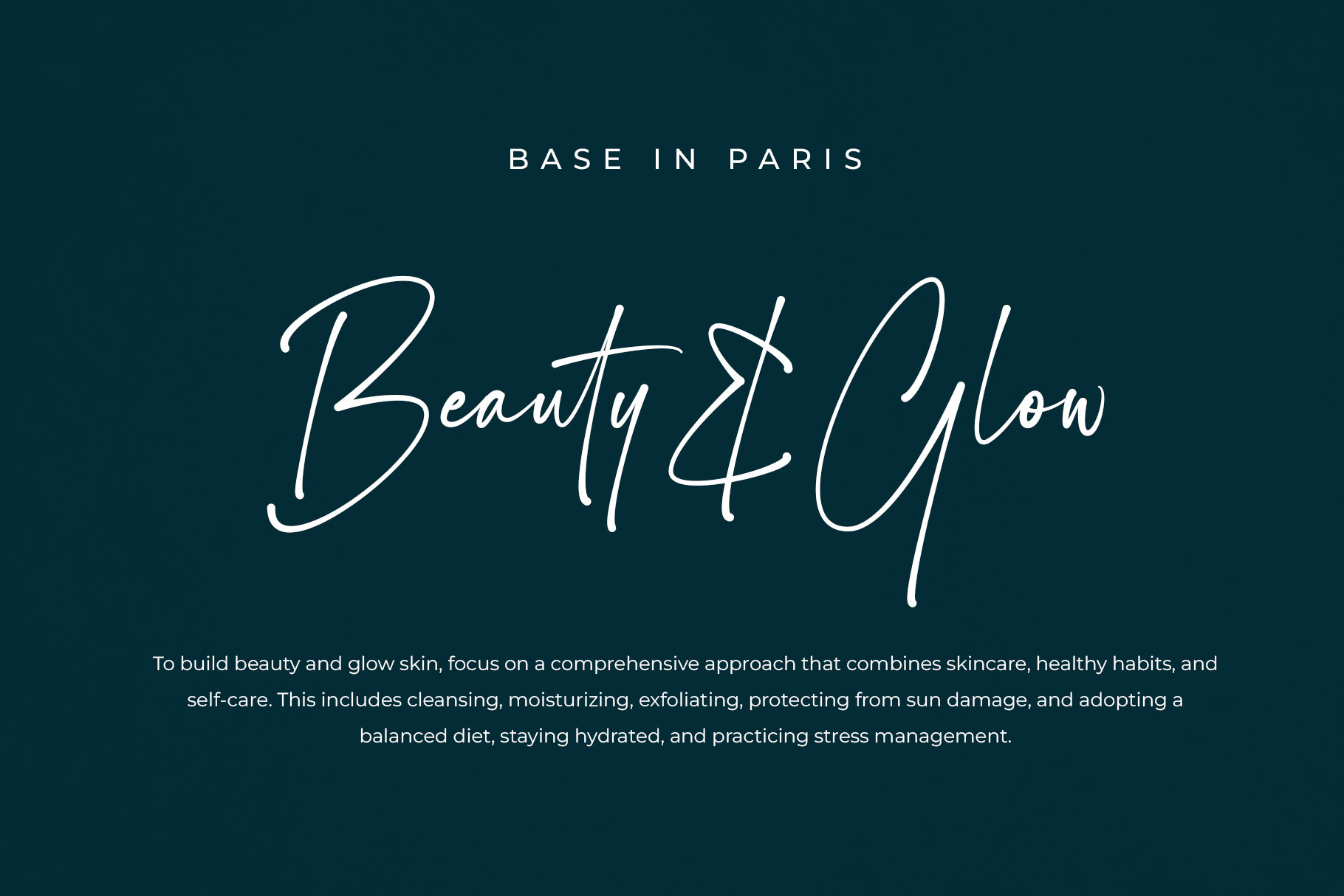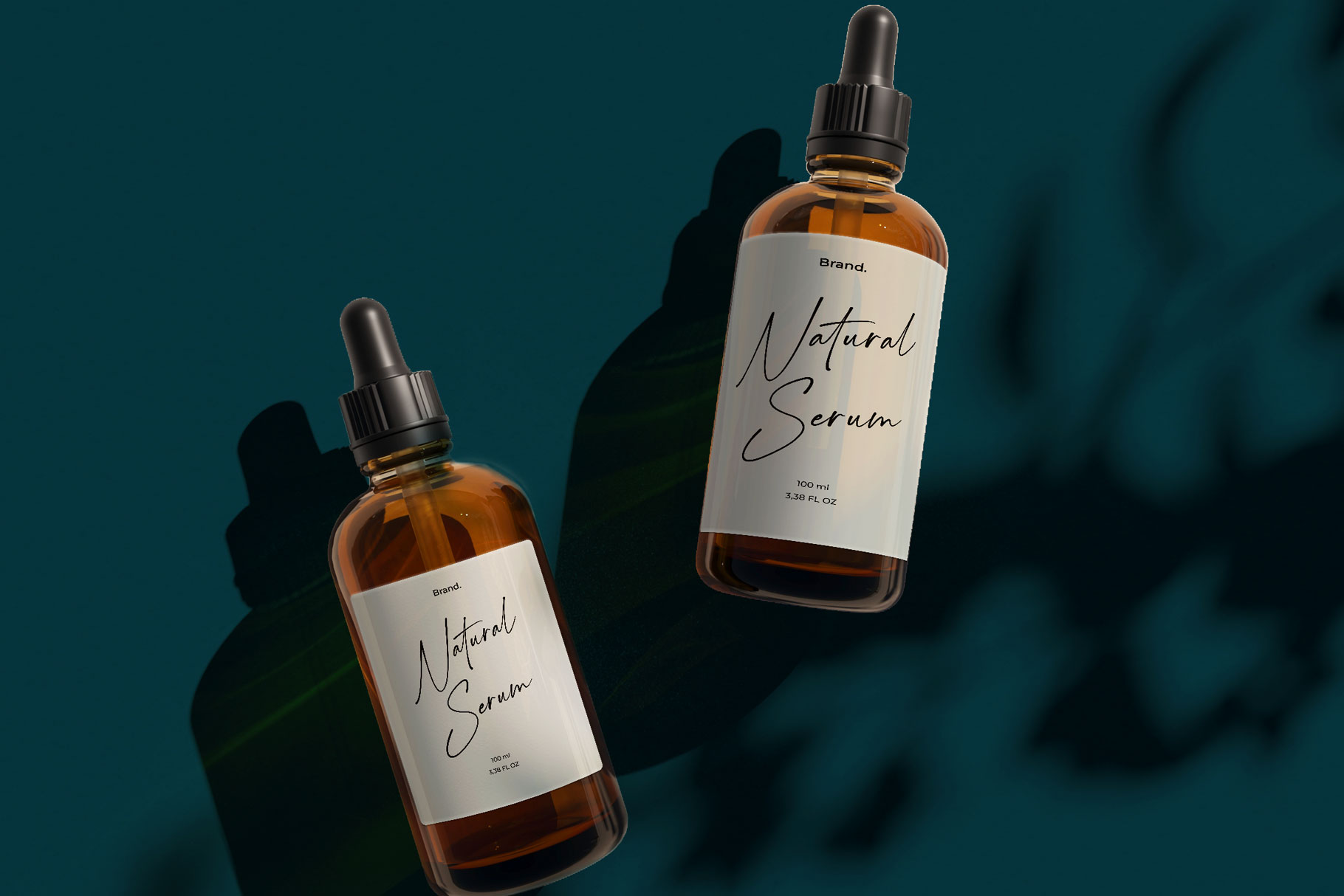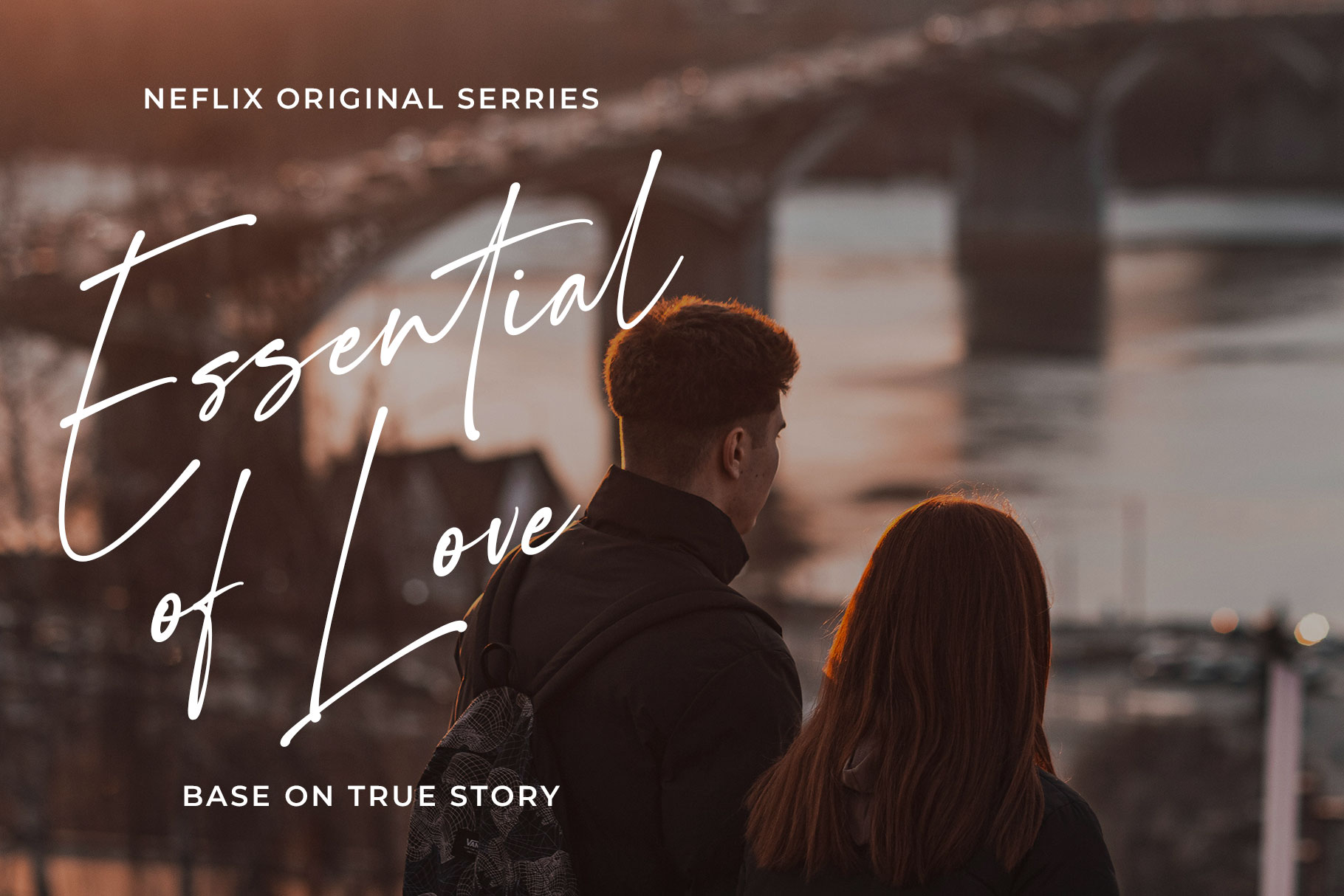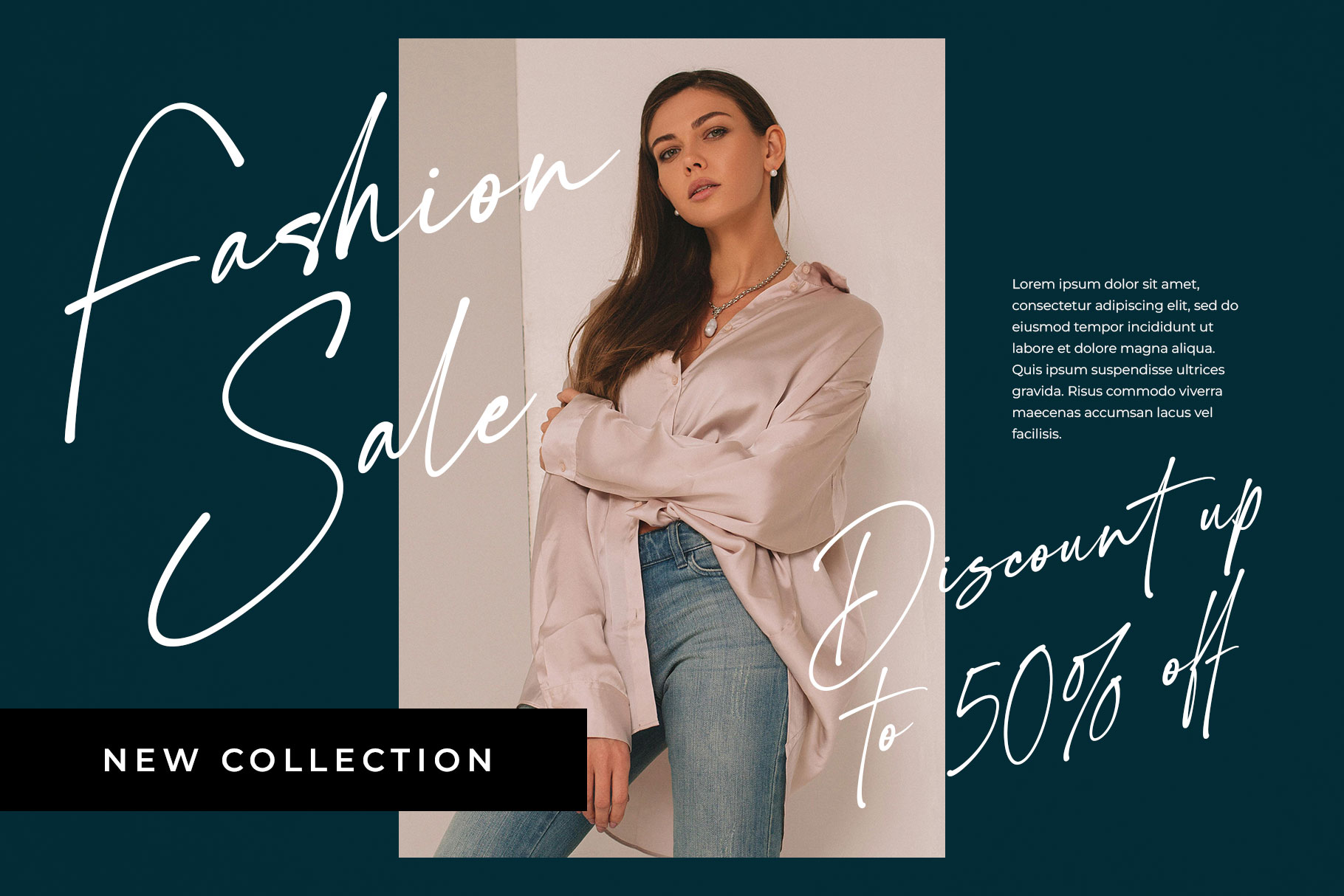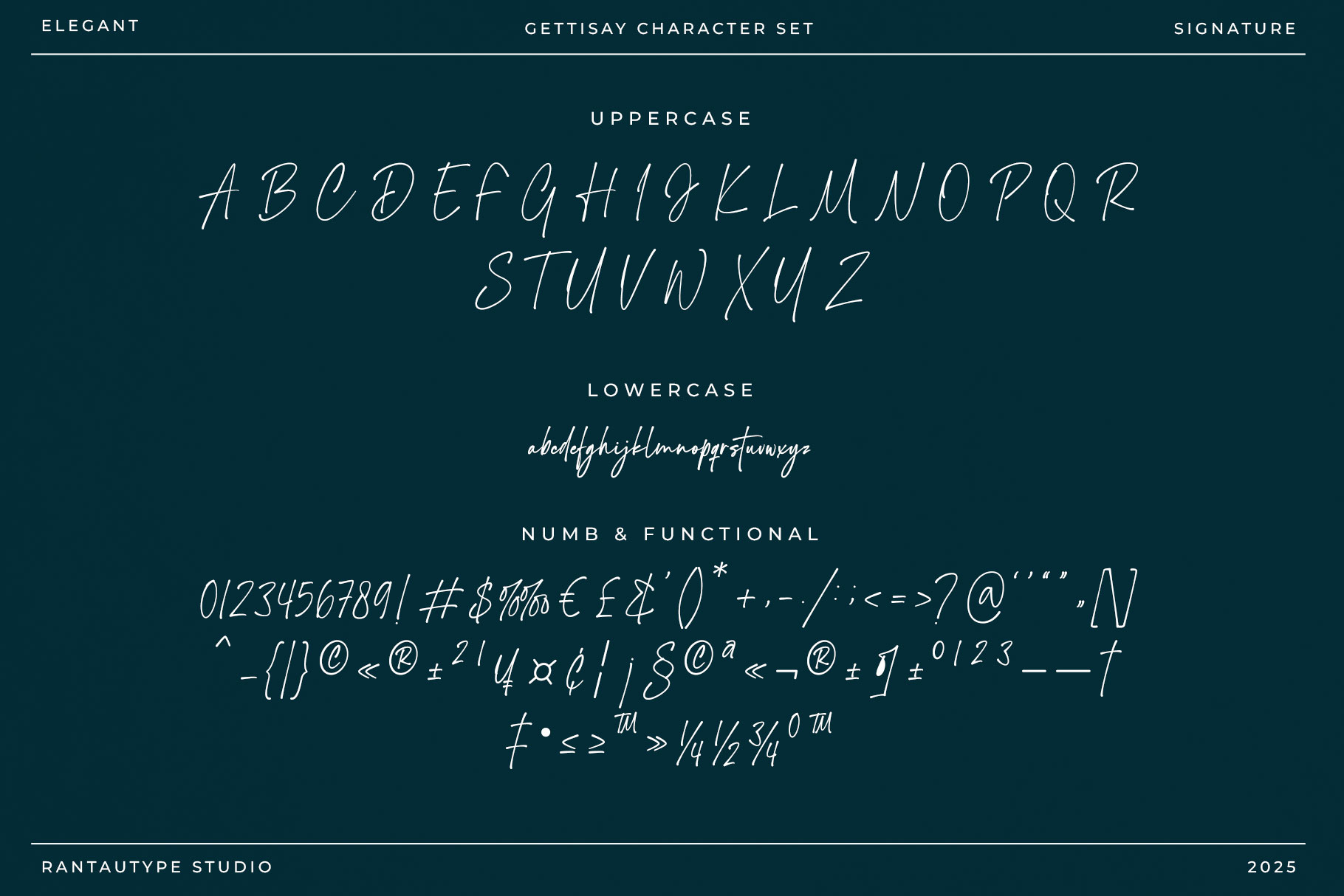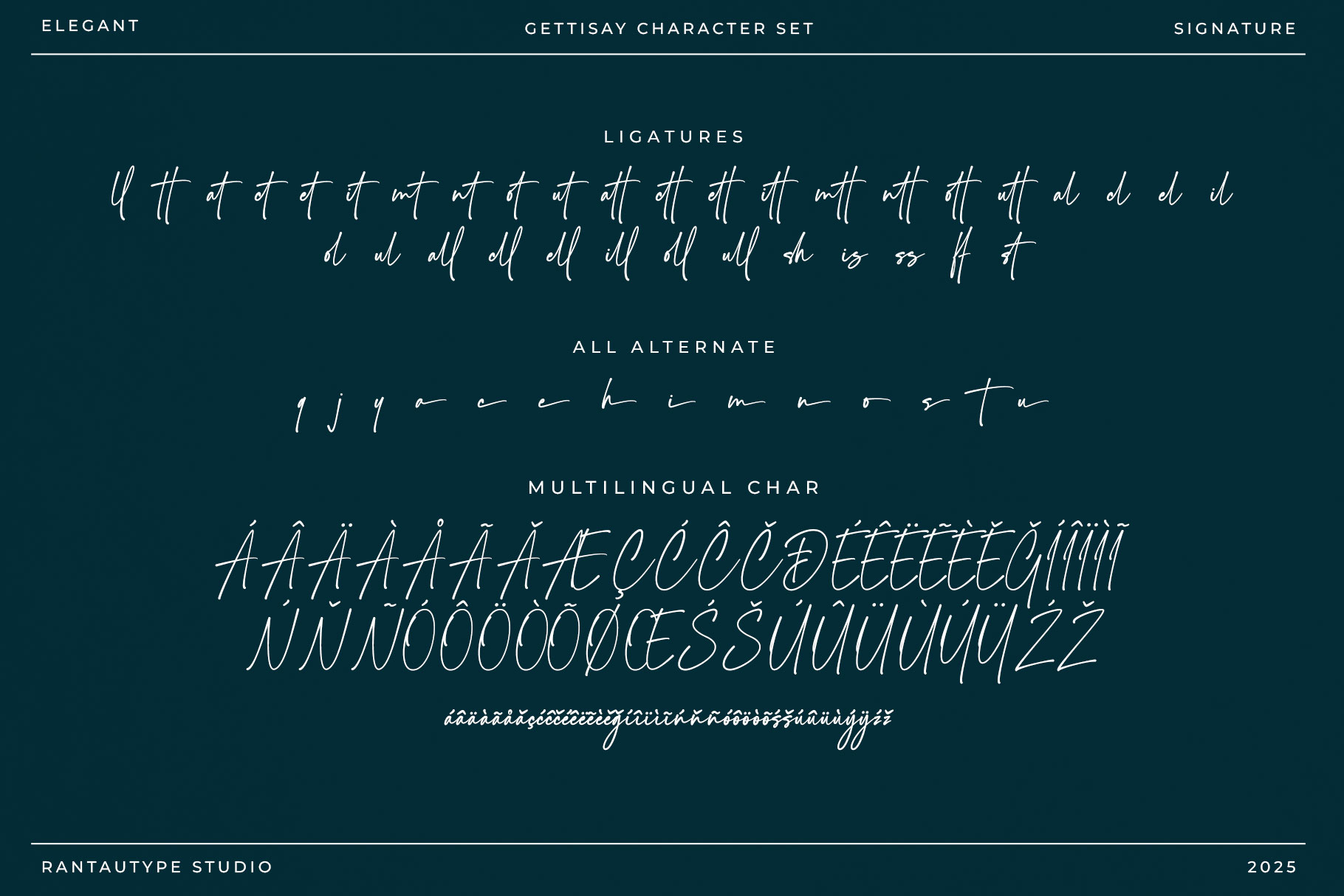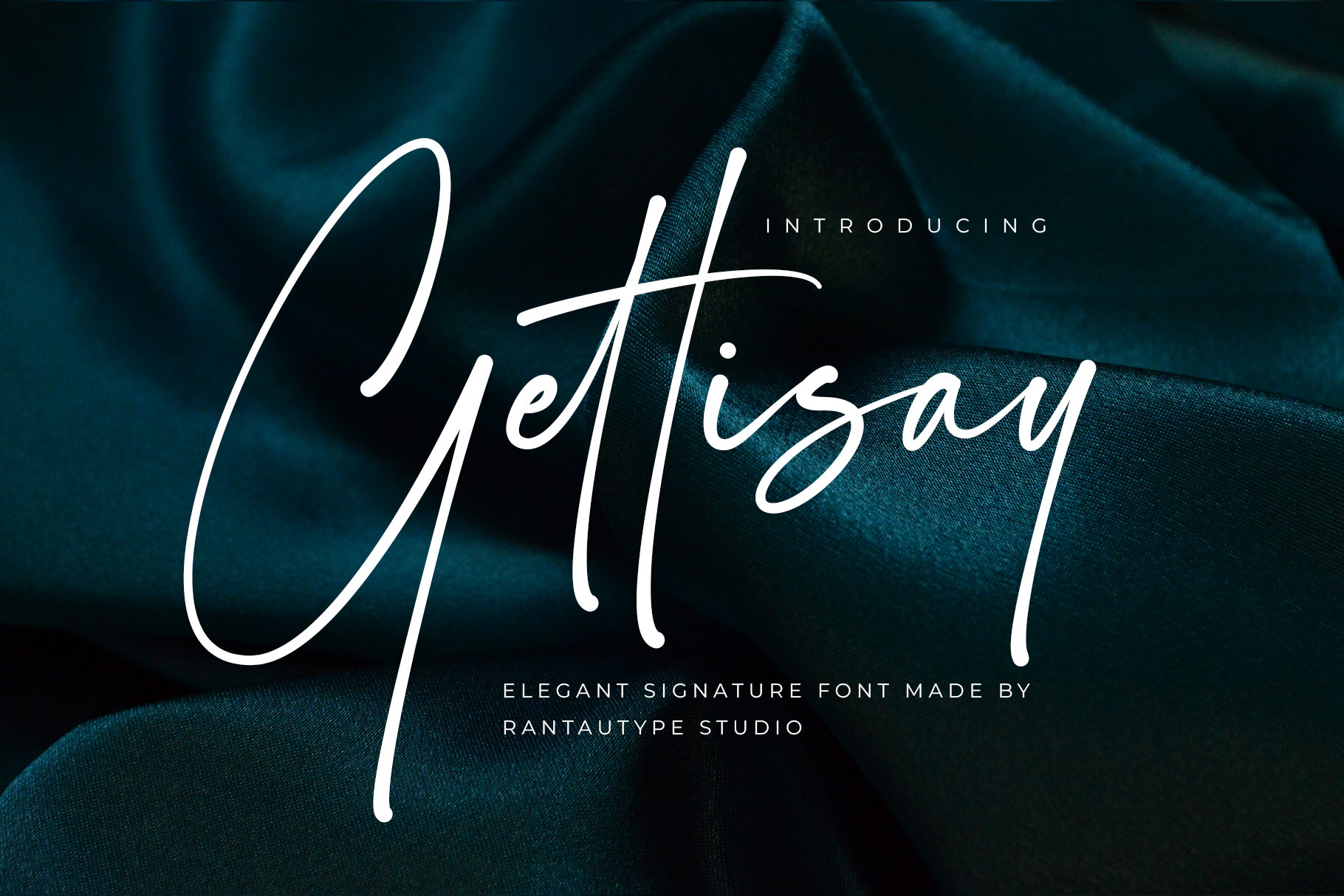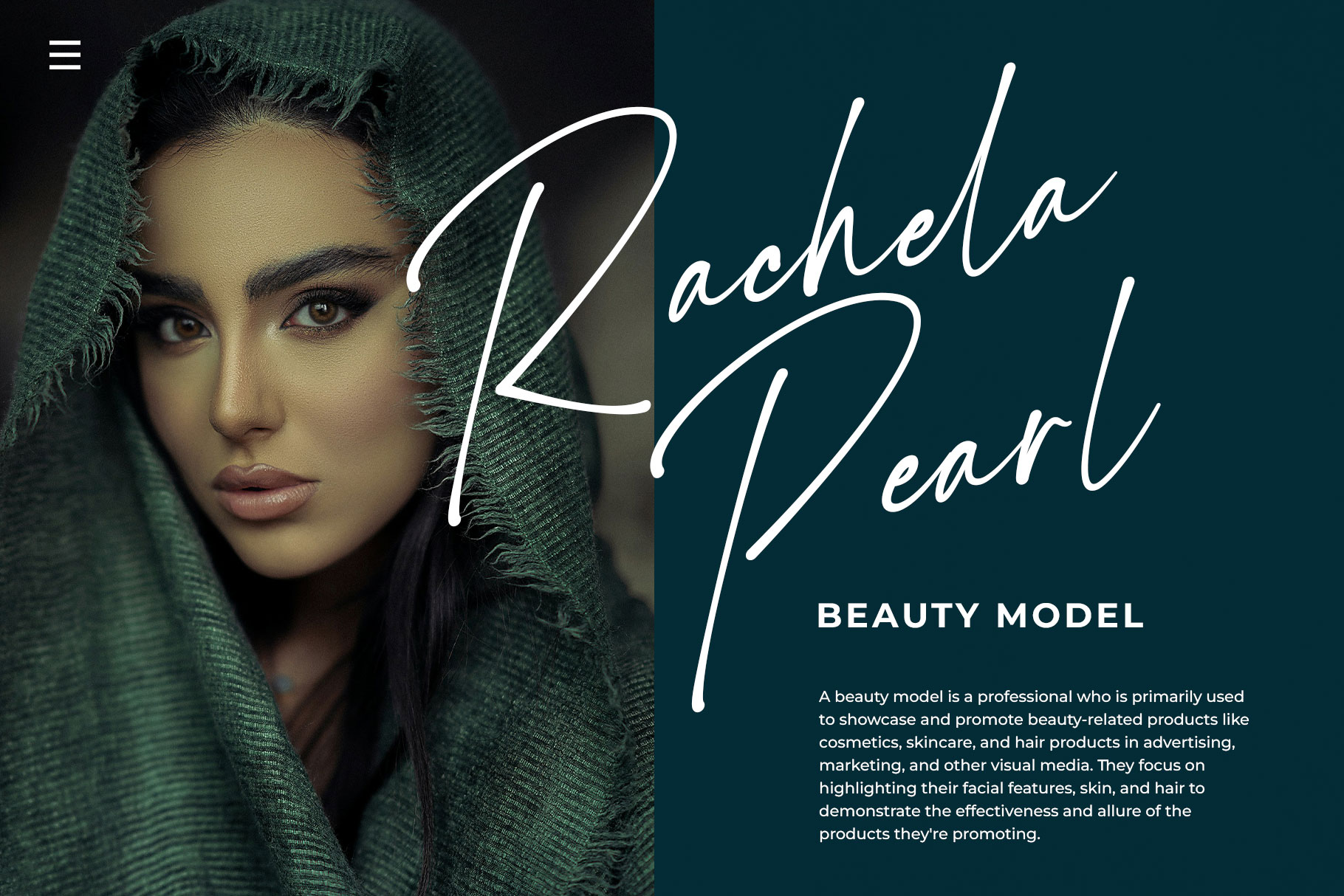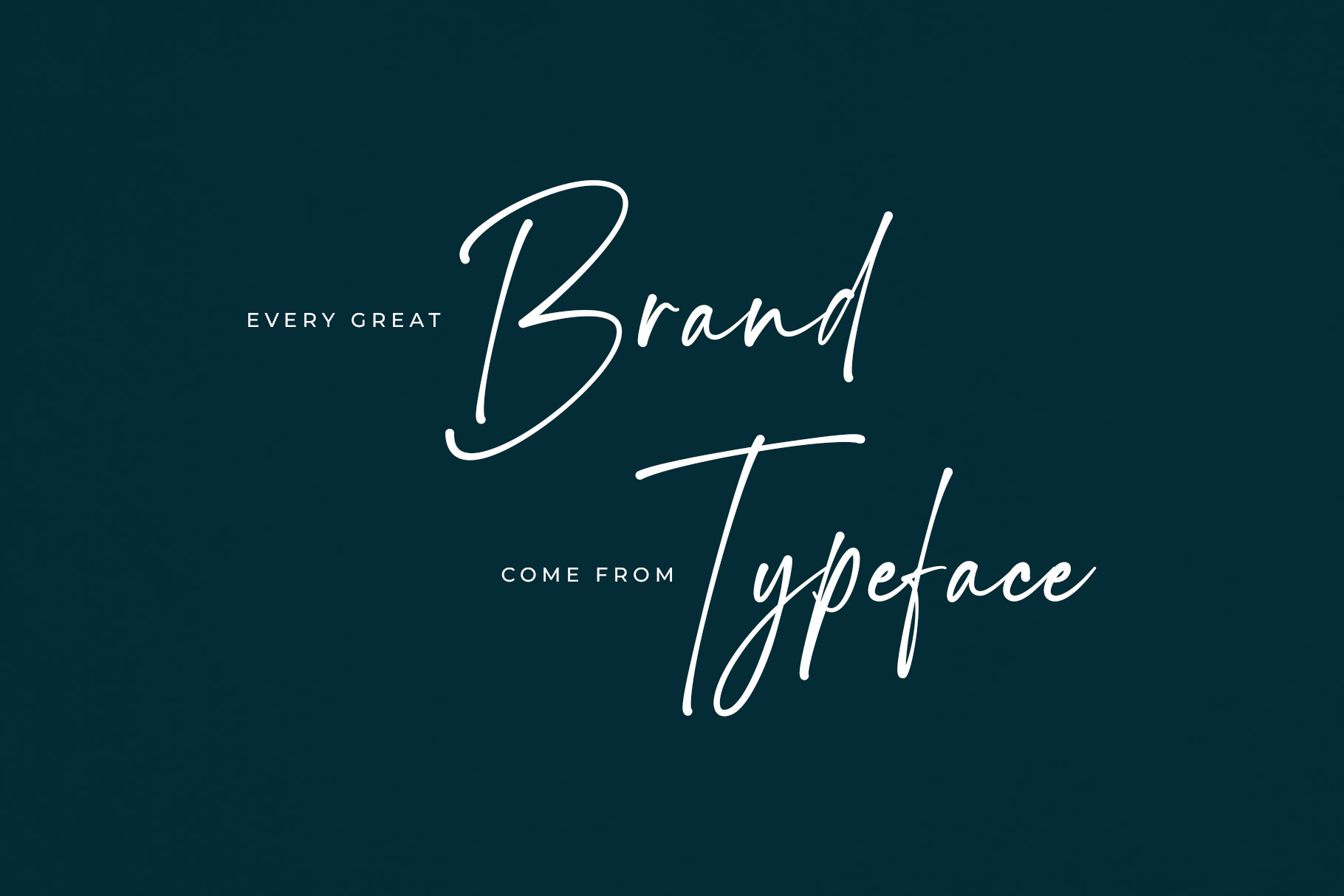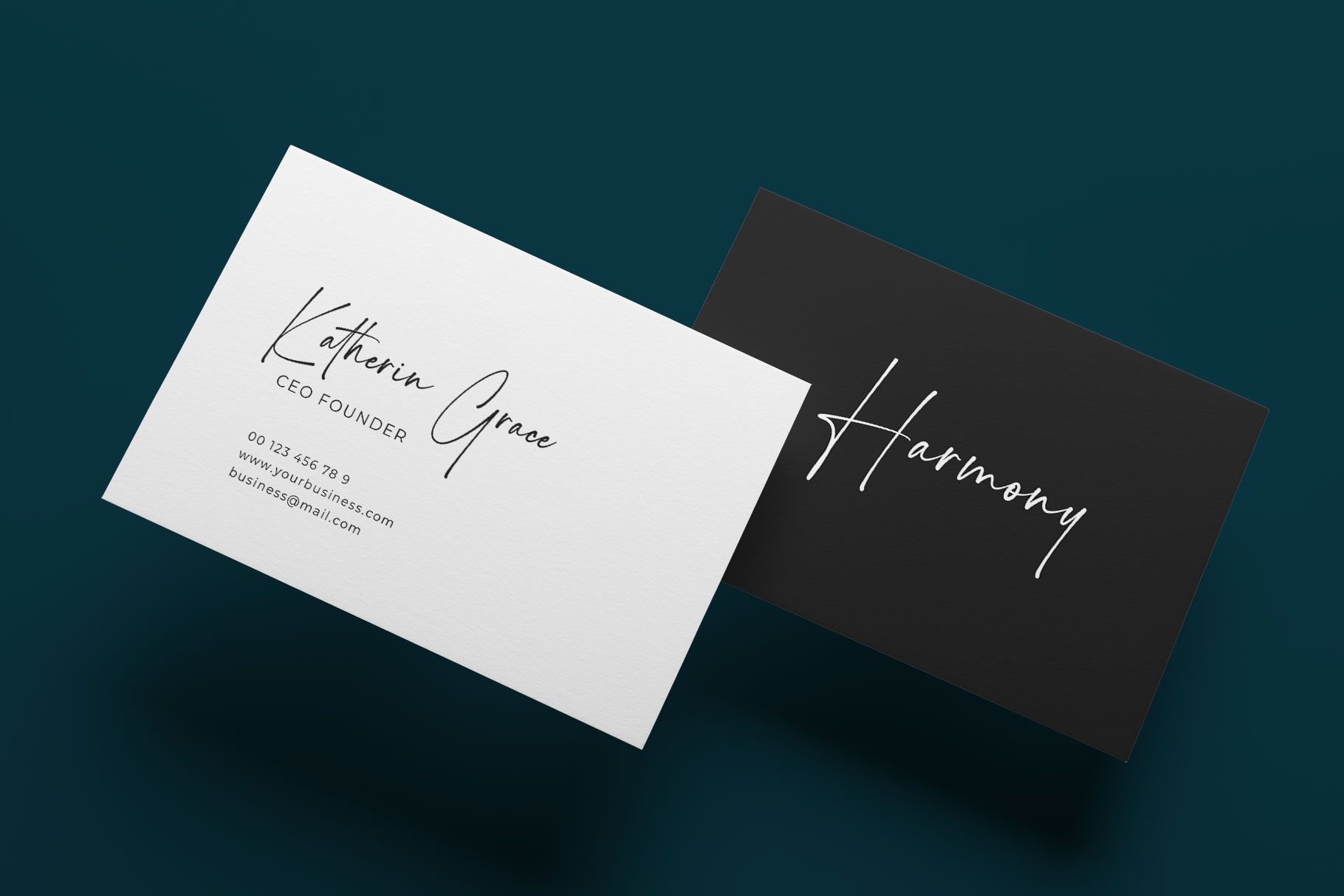
Gettisay Elegant Signature Font
Gettisay is elegant signature font embrace grace and feminity. Gettisay is a perfectly choice for any creative endeavor, creating, modern, chic, lifestyle design such as logotype, title, cover, branding, invitations, wedding designs, display and magazine, social media posts, advertisements, printed quotes, product packaging, corporate brand, product designs, labels, photography, watermarks, special events and any other project with modern touch.